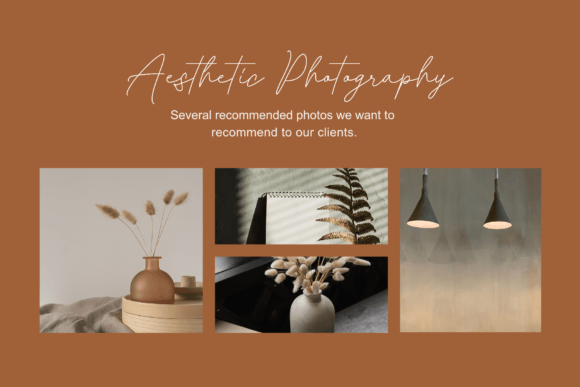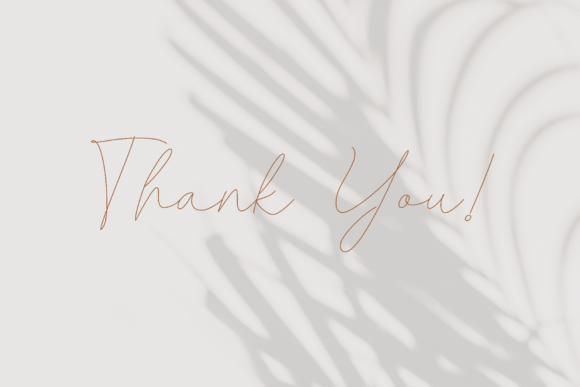
Quickly Replaced Font
Quickly Replaced is a sweet and simple single-line font. Quickly Replaced is perfect for product packaging, branding project, magazines, social media, weddings, or just used to express words above the background.